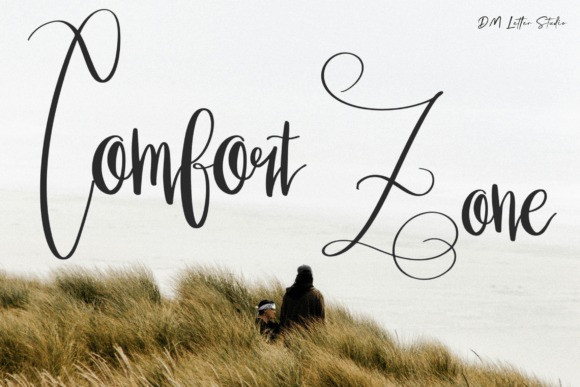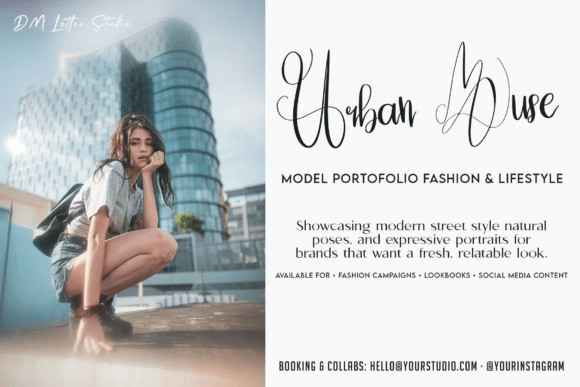
Reluvia Script Font
Reluvia Script Font is a natural handwriting font that feels warm, personal, and effortlessly human. The strokes are smooth and slightly imperfect, which gives every letter an authentic handwritten charm. At the same time, the shapes stay clear and easy to read. Because the spacing is balanced and the flow is gentle, Reluvia works well at small sizes. Meanwhile, it feels expressive and lively on larger text. As a result, Reluvia is perfect for quotes, branding, journaling, social media, and heartfelt designs.
Where this handwriting font shines
Use Reluvia for logos, packaging, greeting cards, planners, notebooks, and social posts. Because the letterforms flow naturally, long sentences remain comfortable to read. For example, it works beautifully for inspirational quotes, captions, and short stories. In addition, Reluvia adds warmth to product labels, small business branding, and personal projects. Whether used digitally or in print, it keeps a friendly and approachable tone.
Design tips for Reluvia
Keep line spacing relaxed so the handwriting can breathe. This improves readability and keeps the design natural. Pair Reluvia with a simple sans serif for body text or product details. Also, soft colors, paper textures, and pastel palettes enhance its handwritten feel. Because the font already feels personal, keep effects minimal. That way, the message feels honest and clear.